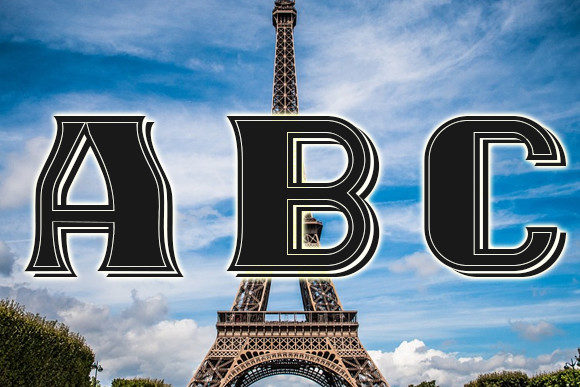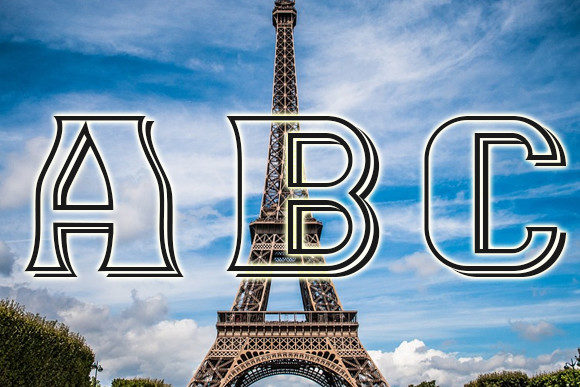
Introduction to Paris Font
Have you ever been stuck on a design project, trying to find the perfect font to elevate your creative vision? I know I have. One moment that stands out in my memory is when I was working on a project that required a vintage touch. I spent hours browsing through font libraries, but nothing seemed to capture the essence of what I was looking for. That was until I stumbled upon the Paris Font – a stunning, outlined display font that instantly breathed new life into my design.
The Paris Font is more than just a stylish addition to your design; it’s a high-quality resource that can take your creative project to the next level. Its transparent background and vintage flair make it perfect for adding a touch of sophistication to billboards, posters, and flyers. And the best part? It’s available for free download, making it an invaluable design resource for designers of all levels.
- Unique characteristics: Elegant and sophisticated design, perfect for creating visually appealing designs.
Honest Review: Paris Font
I recently had the chance to work with the Paris Font, and I must say it’s been a game-changer for my creative projects. The high quality of this font is evident from the first glance, making it a great addition to any design resource.
One of the standout features of the Paris Font is its transparent background, which makes it incredibly versatile and easy to use. I’ve found myself using it for everything from branding to signage, and it always looks fantastic.
- ✨ High-quality design: The Paris Font is incredibly detailed and visually appealing.
- ✨ Versatile: The transparent background and high-quality design make it perfect for a wide range of creative projects.
- ⚠️ Limited language support: Unfortunately, the Paris Font only supports a limited number of languages, which can be a problem for international projects.
- ⚠️ Not suitable for small text: While the Paris Font looks great at larger sizes, it can become difficult to read at smaller sizes.
Overall, I’m really impressed with the Paris Font and would highly recommend it to anyone looking for a high-quality design resource. Just be aware of its limitations, and you’ll be all set for a successful project!
Tips for Getting the Most Out of Paris Font
For optimal results, use Paris Font on a transparent background to create a clean and elegant design. You can also experiment with different font sizes, colors, and combinations to achieve the desired look.
Paris Font is a versatile design resource that can be used for a variety of creative projects, including:
- Branding and logo design
- Business cards and resumes
- Social media graphics and ads